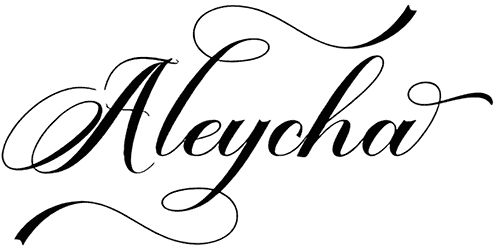
Keep it artistic, sophisticated, and utterly fancy as well, with Aleycha doing it all for you simultaneously. The cursive letterforms of this calligraphy font welcome an upper-crust flair into your texts, so that it won’t even matter anymore if your text is a bit harder to decipher.
Aleycha is a Elegant Calligraphy font, carefully handcrafted to become a true favorite. Its casual charm makes it appear wonderfully down-to-earth, readable and, ultimately, incredibly versatile. Outside will look outstanding in any context, whether it’s being used on busy backgrounds or as a standalone headline!